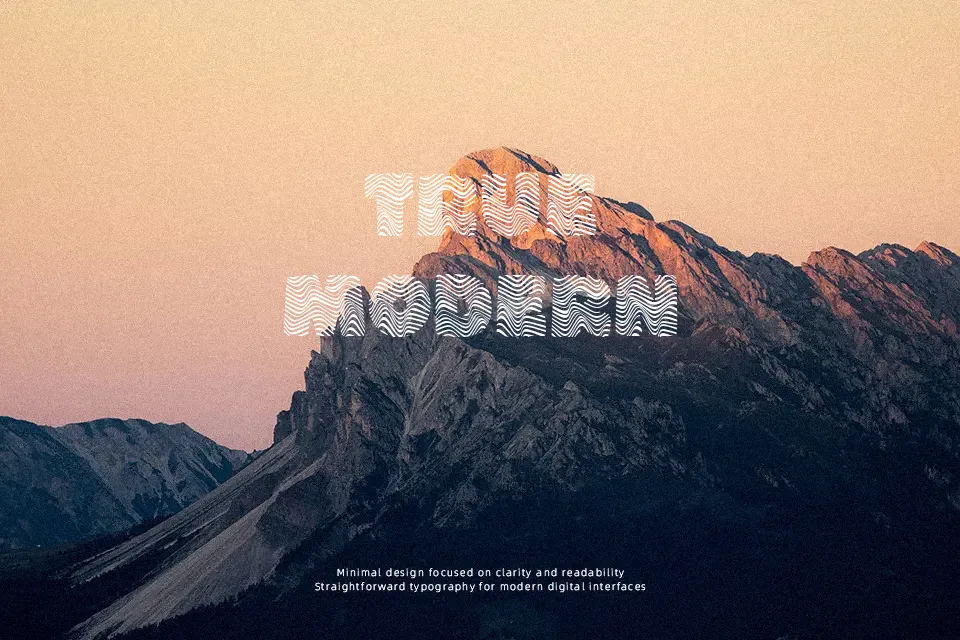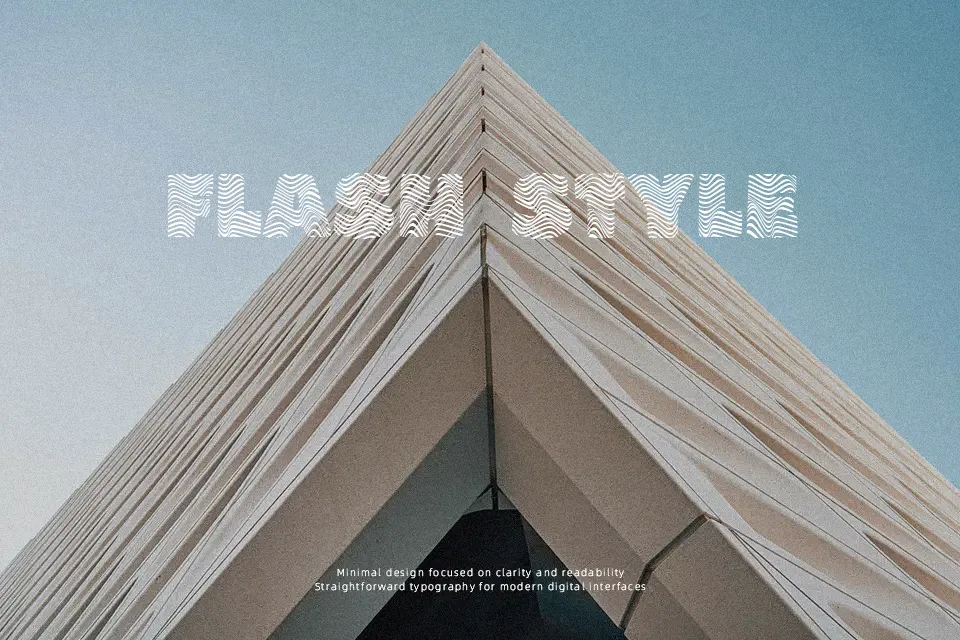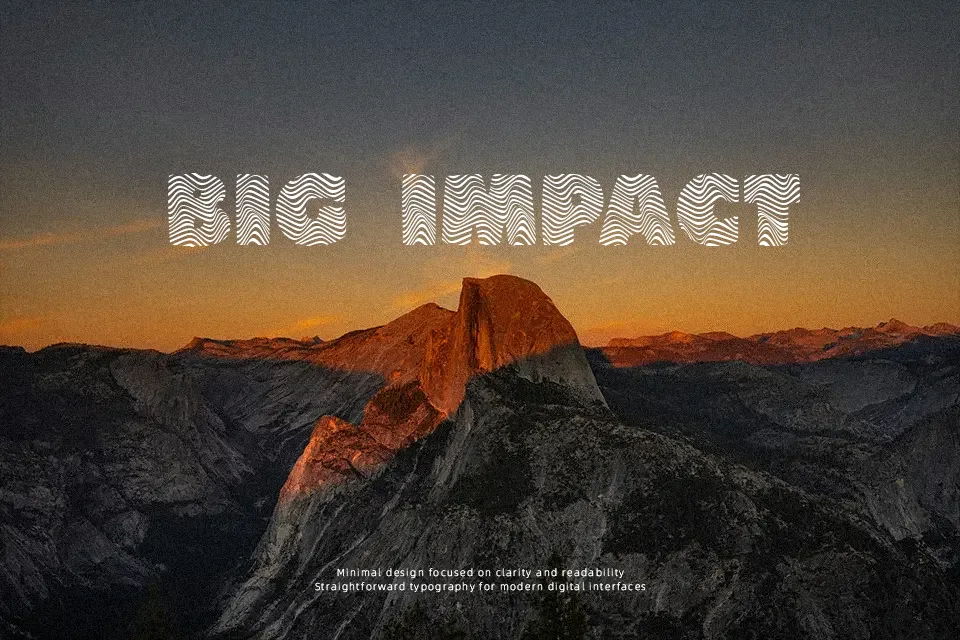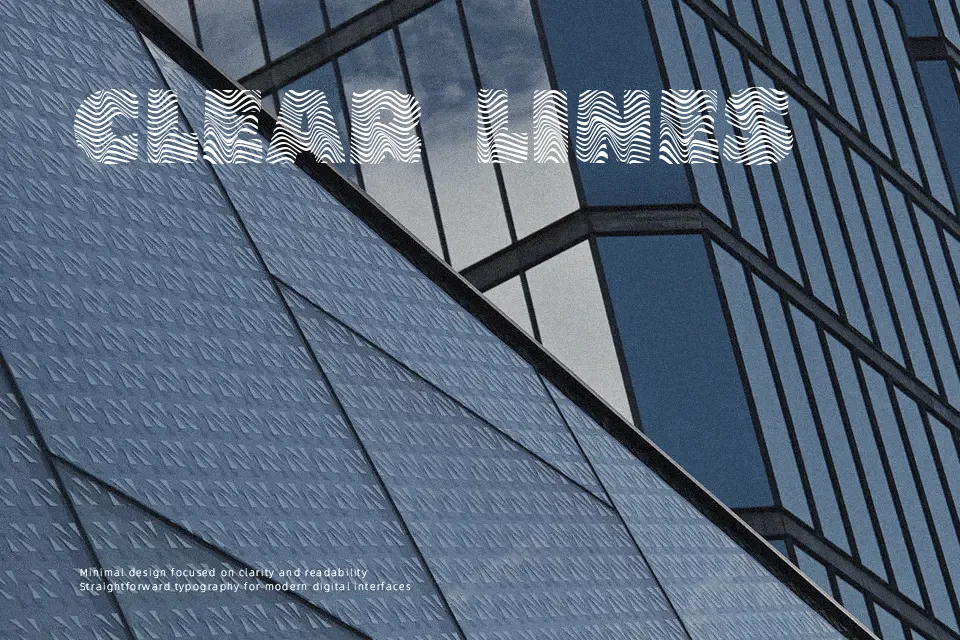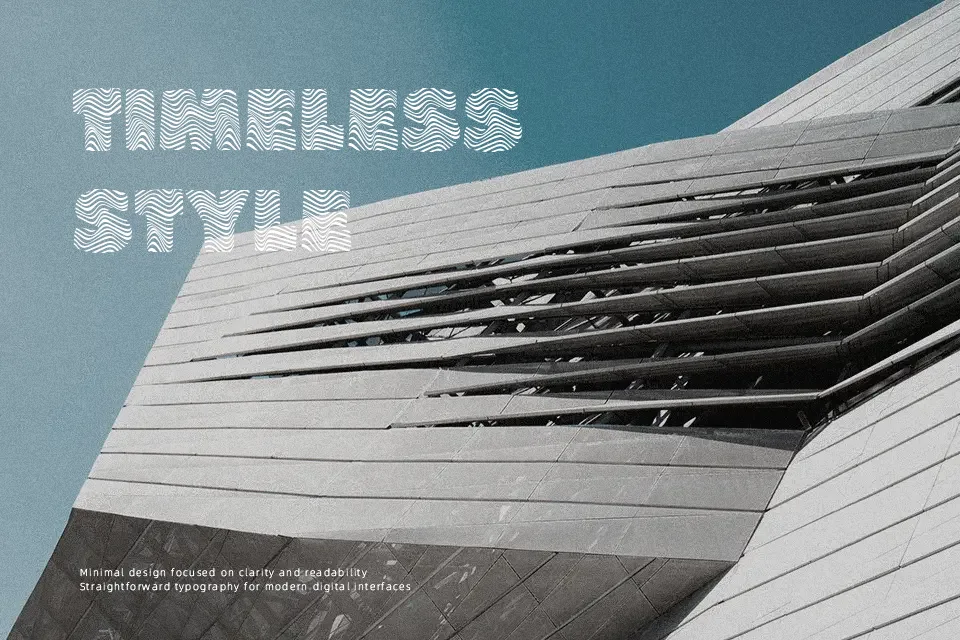
The Wave Font
Built with thick, solid silhouettes filled with undulating horizontal stripes, The Wave Font immediately commands visual attention as a specialized decorative typeface. Each glyph pairs balanced, uniform outer proportions with high-contrast interior wave cuts that produce a vibrant, vibrating rhythmic texture. Character spacing is intentionally compact to maintain cohesion across display titles, while the sturdy stroke terminals preserve overall letterform recognition in short headline settings. The dense inner patterning makes the letterforms remarkably effective for large event banners and creative product packaging. However, this complex graphic fill severely compromises legibility at smaller text sizes, making the typeface impractical for extended body text or dense editorial compositions.
Best For: music festival posters, beverage packaging, casual apparel graphics
Not Ideal For: long paragraph text, small interface labels, dense editorial layouts
Perfect for advertising, headline, and logo, with a artistic and decorative style.